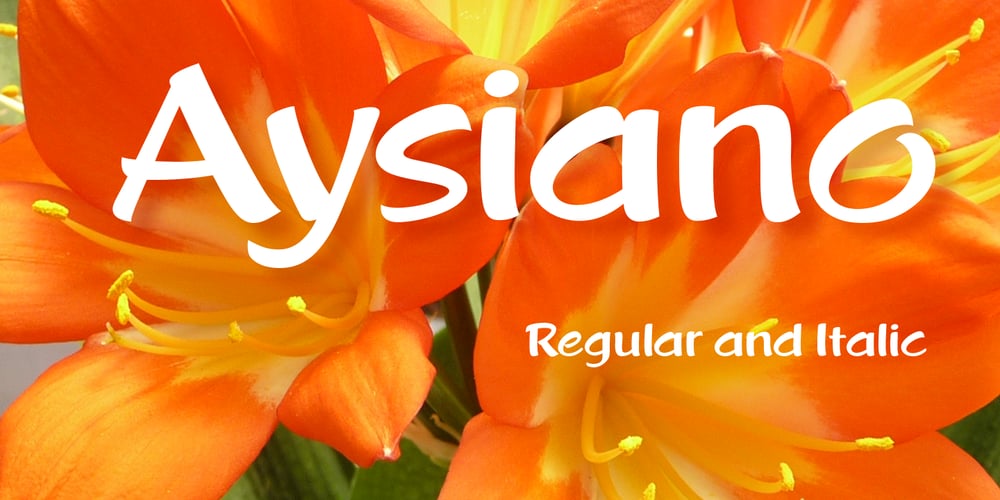
Aysiano Font Family was designed by Keith Morris and published by Bean & Morris. Aysiano contains 2 styles and family package options. Aysiano Regular and Italic is a casual sans serif typeface with its influence originating from Eastern broad brush style calligraphy. It includes selected swash caps to vary the settings where required. With a slick, fresh feel, capturing the spontaneity of brushed hand lettering, it will be suited to many applications especially as a display font although it can also be used in larger text sizes with great legibility.